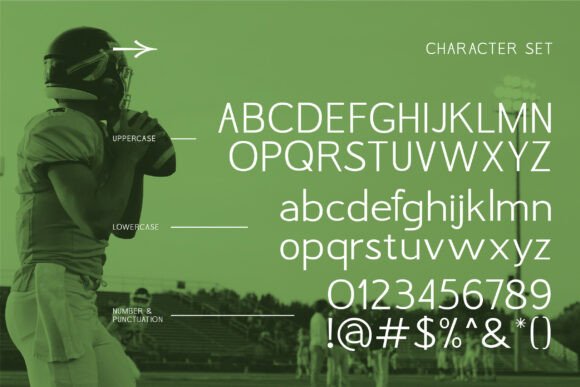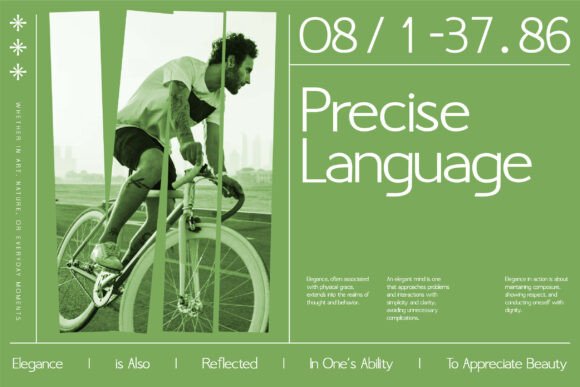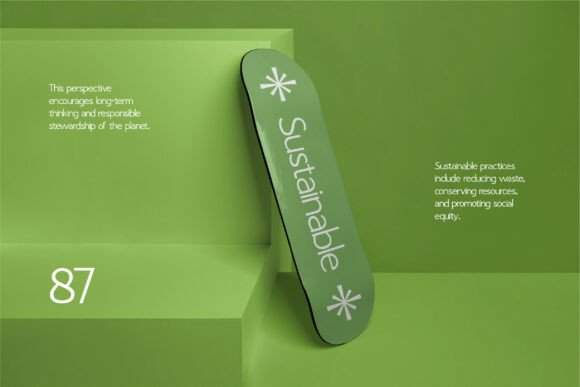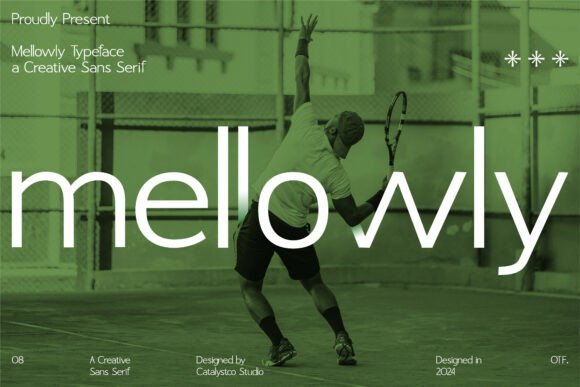
Introduction to Mellowly Font
Discover a masterclass in modern minimalism with Mellowly, a creative sans serif typeface.
This font strikes a perfect balance between geometric precision and artistic flair Characterized by its thin, clean lines and unique β€œopen” terminals, Mellowly exudes a sense of airy sophistication and contemporary style.